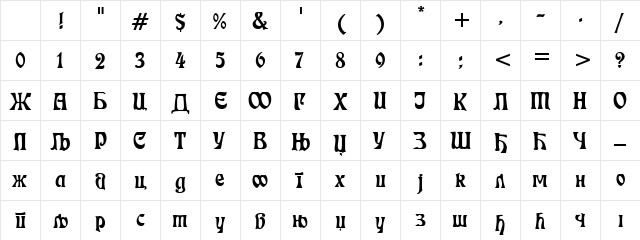
Complete C_Freeform Normal glyph index. Displaying only characters natively supported by C_Freeform Normal font.
C_Freeform is a composed and adaptable typeface that performs quietly and consistently across a wide range of design contexts.